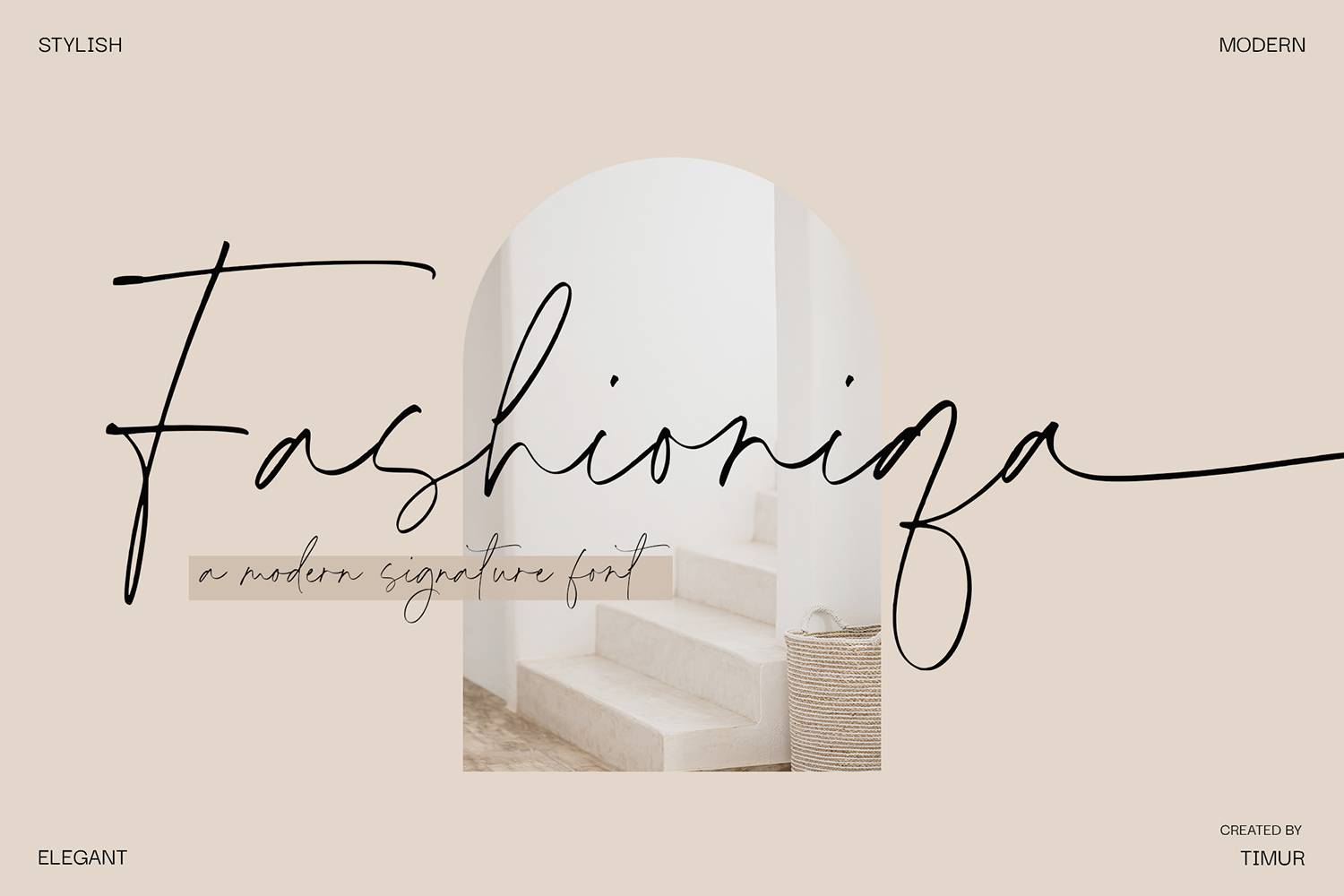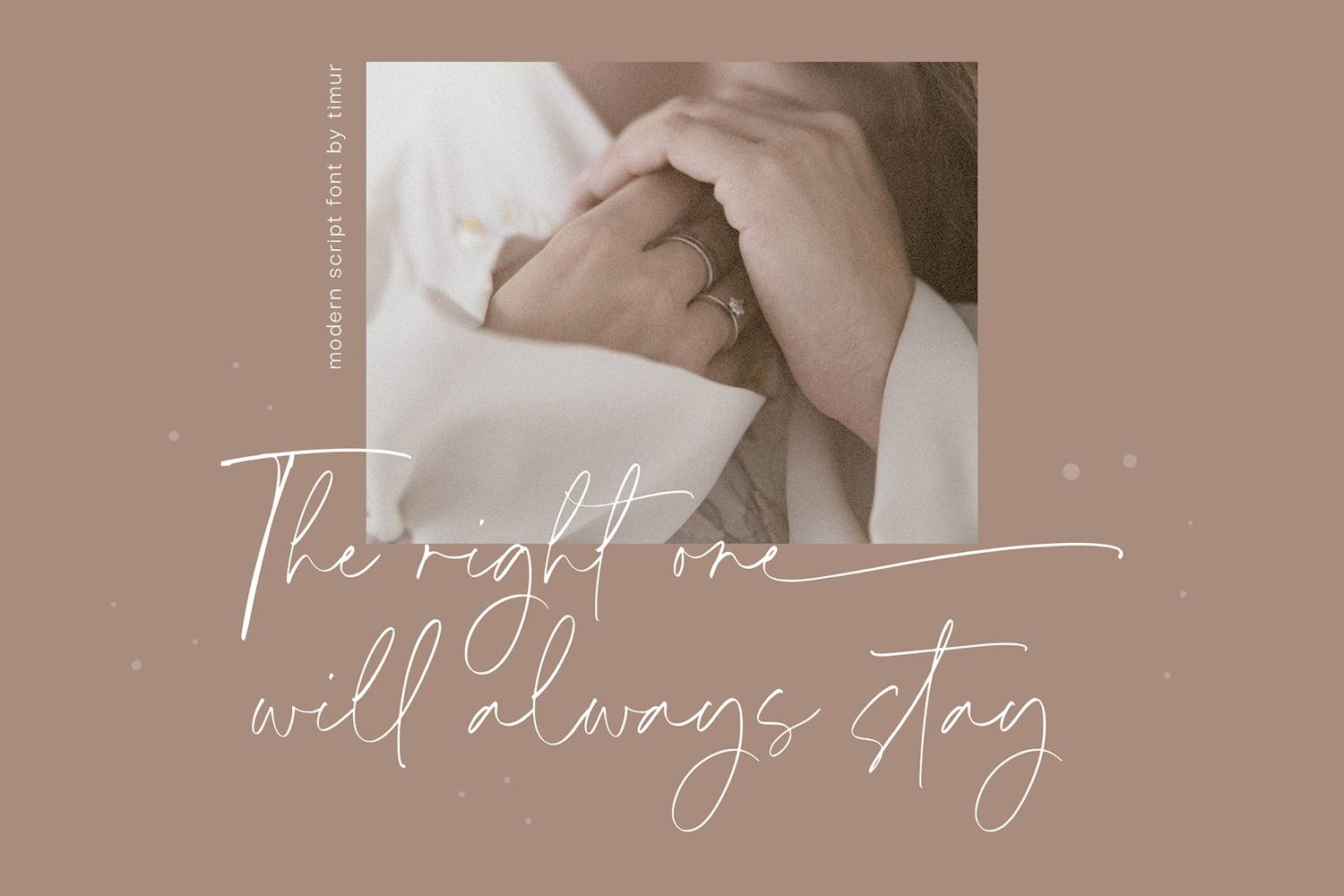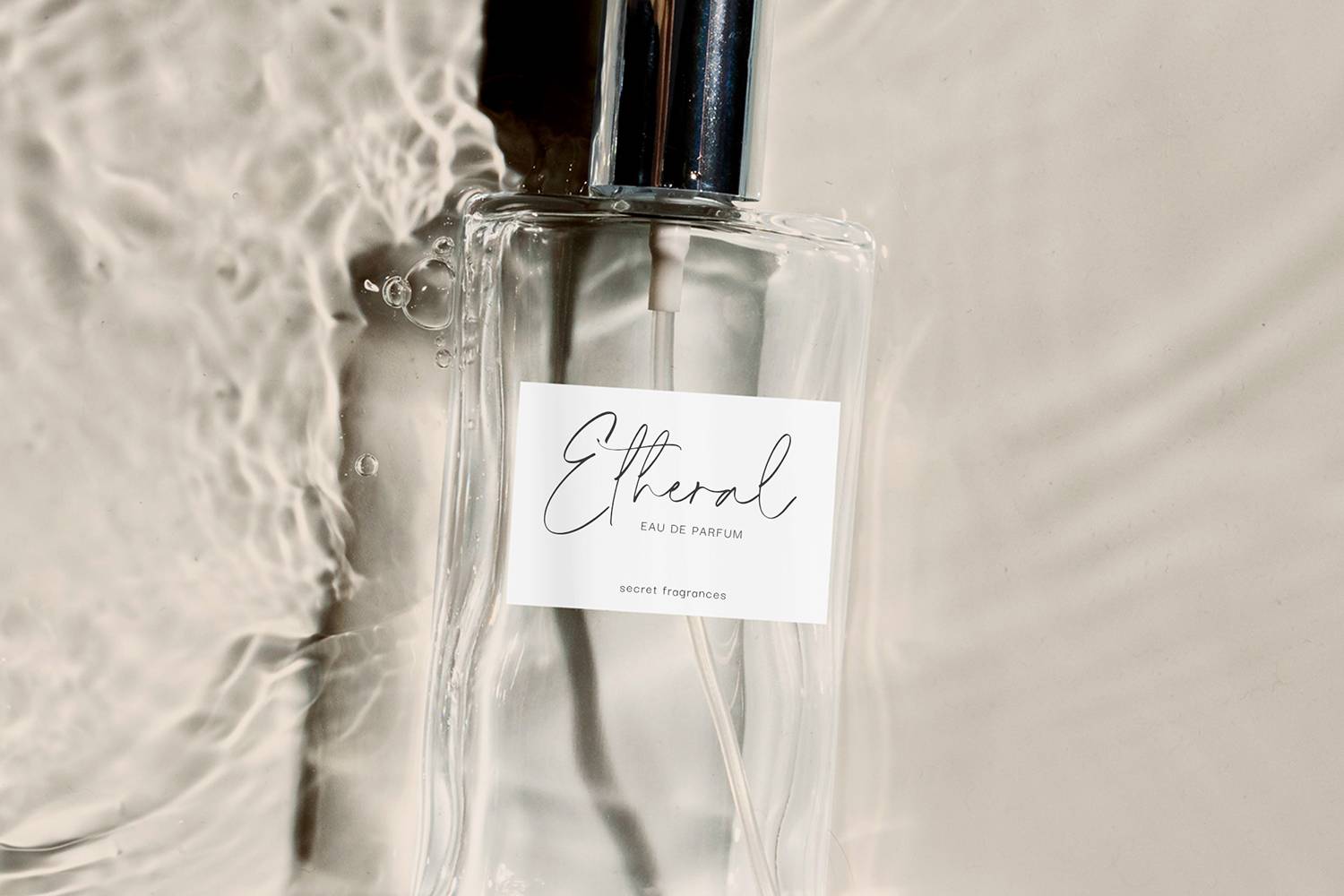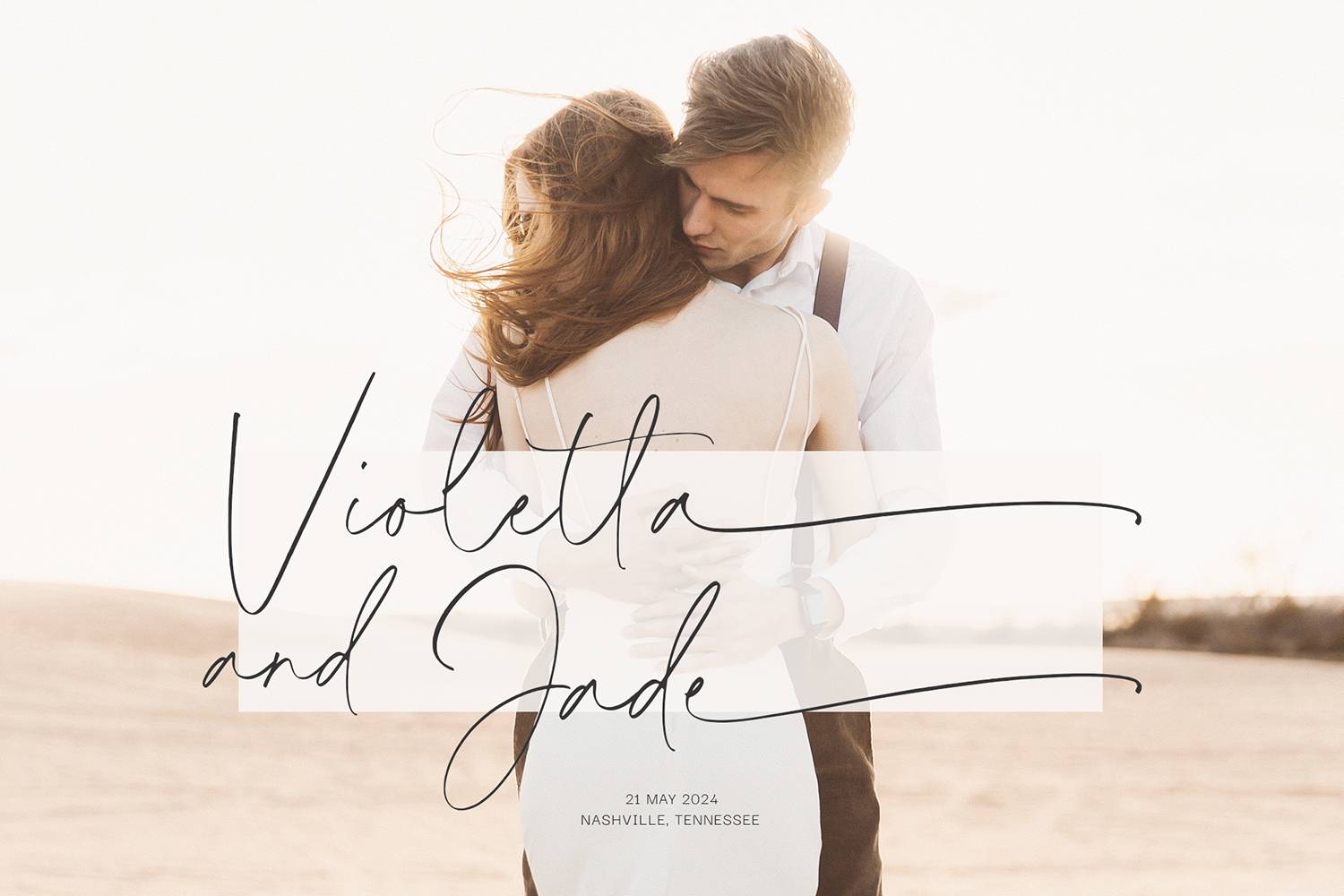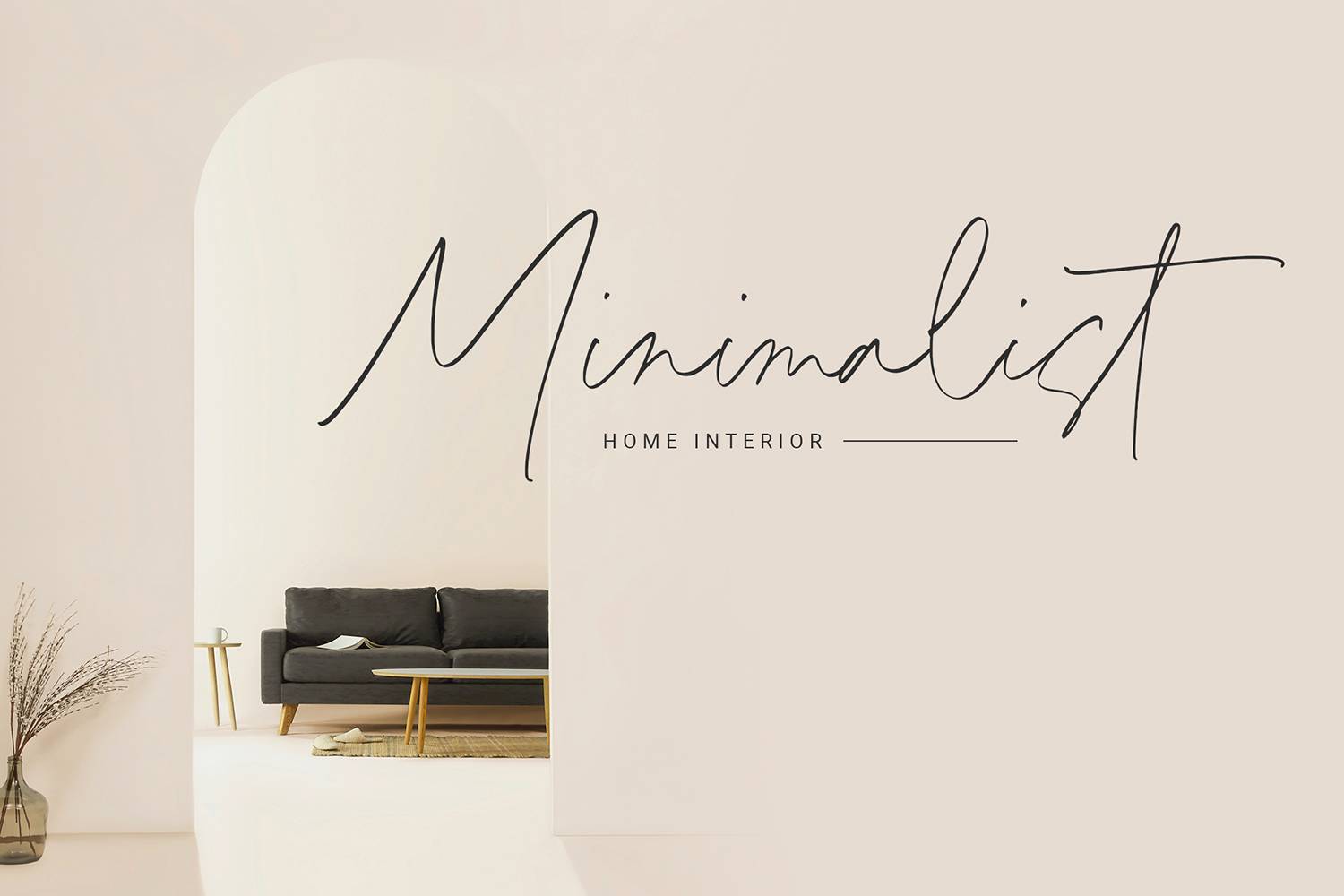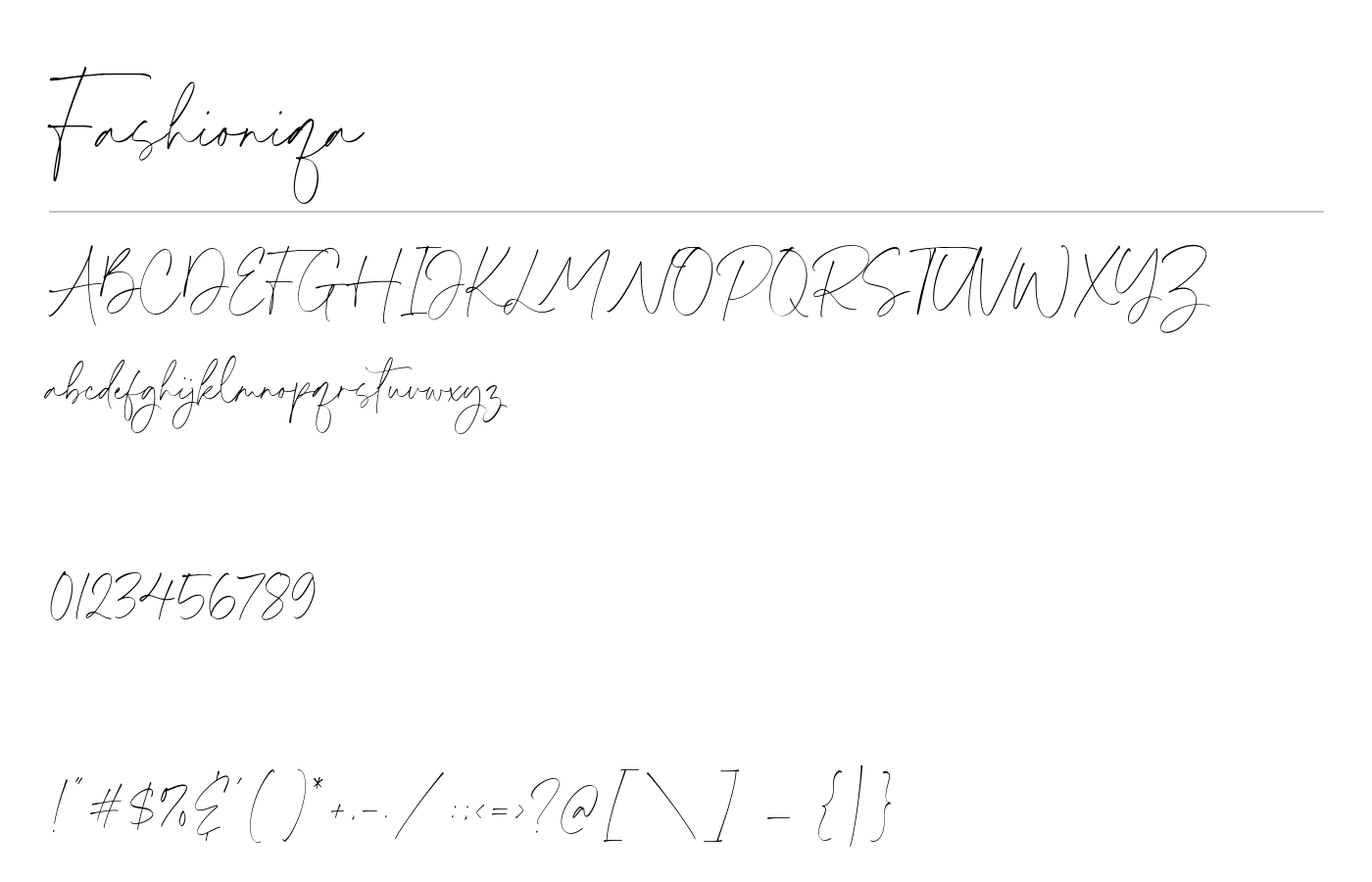
Fashioniqa is a delicate, thin-script font that combines elegant, flowing strokes with a refined handwritten charm. Its slender letterforms and subtle curves evoke a chic, sophisticated feel ideal for luxury branding, fashion projects, and stylish invitations where a personal, graceful touch is desired. This font works beautifully for headlines and logos that aim to communicate modern elegance and understated beauty.
Fashioniqa Font
About Fashioniqa Font